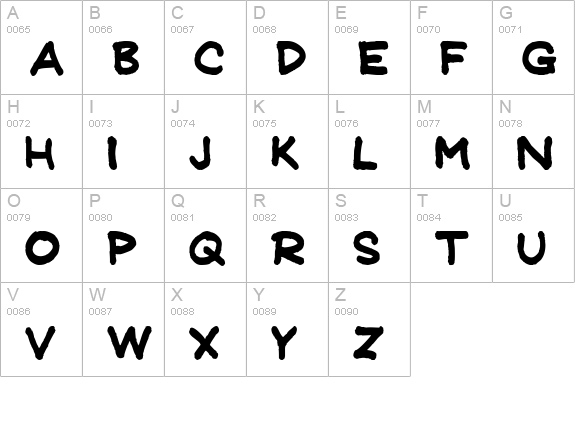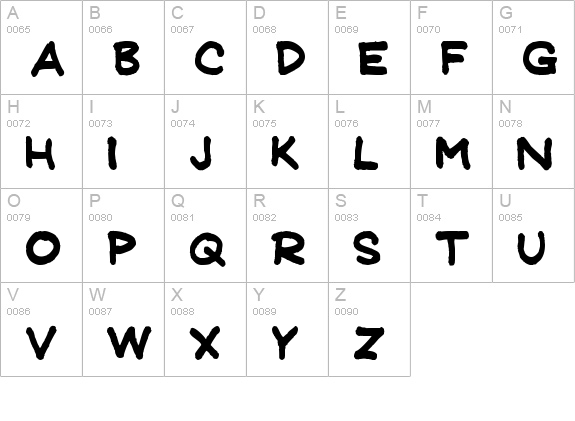
Introducing JeffreyPrint JL, a modern and stylish font that exudes elegance and sophistication. With its sleek lines and contemporary design, this font is perfect for a wide range of design projects, from branding to packaging to social media graphics. What sets JeffreyPrint JL apart is not just its stunning aesthetics, but also the fact that it is completely free to download. That's right - you can get your hands on this beautiful font at no cost at FontsMarket.com. Whether you're a seasoned designer looking to add a fresh new font to your collection or a beginner wanting to experiment with typography, JeffreyPrint JL is the perfect choice. Don't miss out on this fantastic opportunity to elevate your designs with the classy and versatile JeffreyPrint JL font. Download it now for free and let your creativity soar.